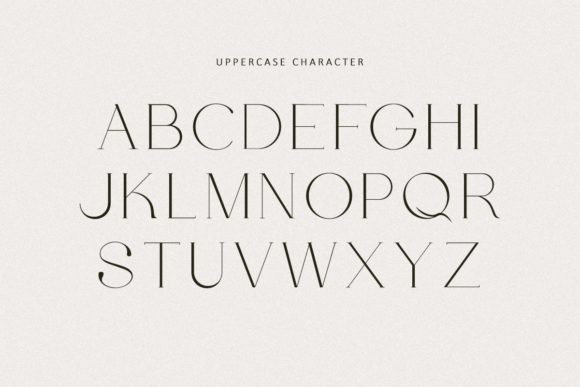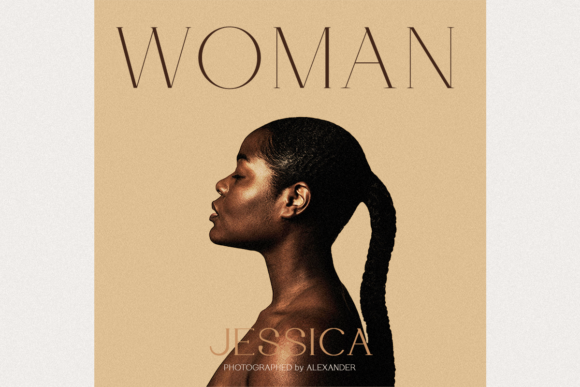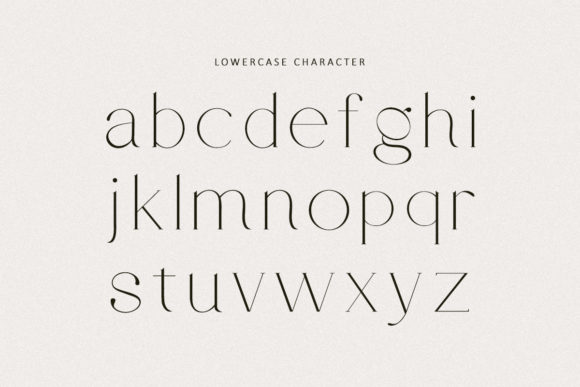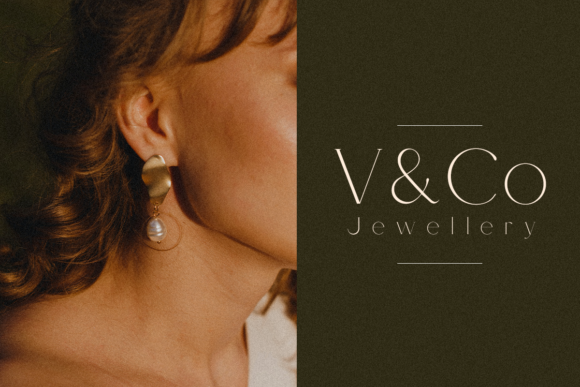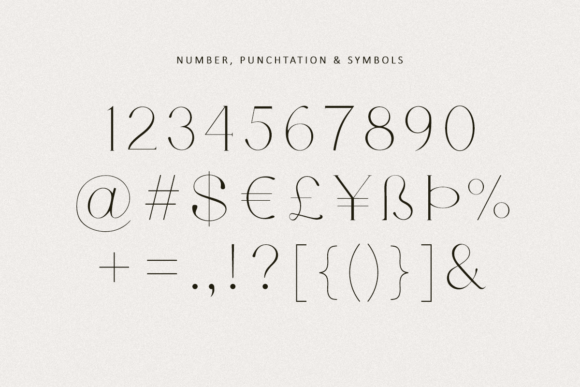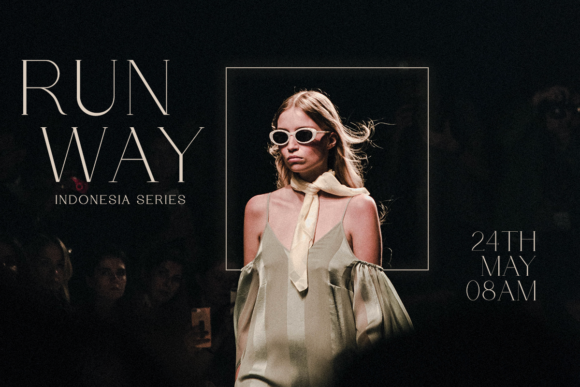
Introduction to Leony Font
Leony – Elegant Serif Fashion font perfect for branding, logos, invitation, mastheads, or anything that needs to look impeccable.
Key Features of Leony Font
Why Choose Leony Font?
Leony Font offers exceptional quality and versatility, making it a valuable addition to your design toolkit. Whether you’re creating for personal projects or commercial use, Leony Font delivers professional results.